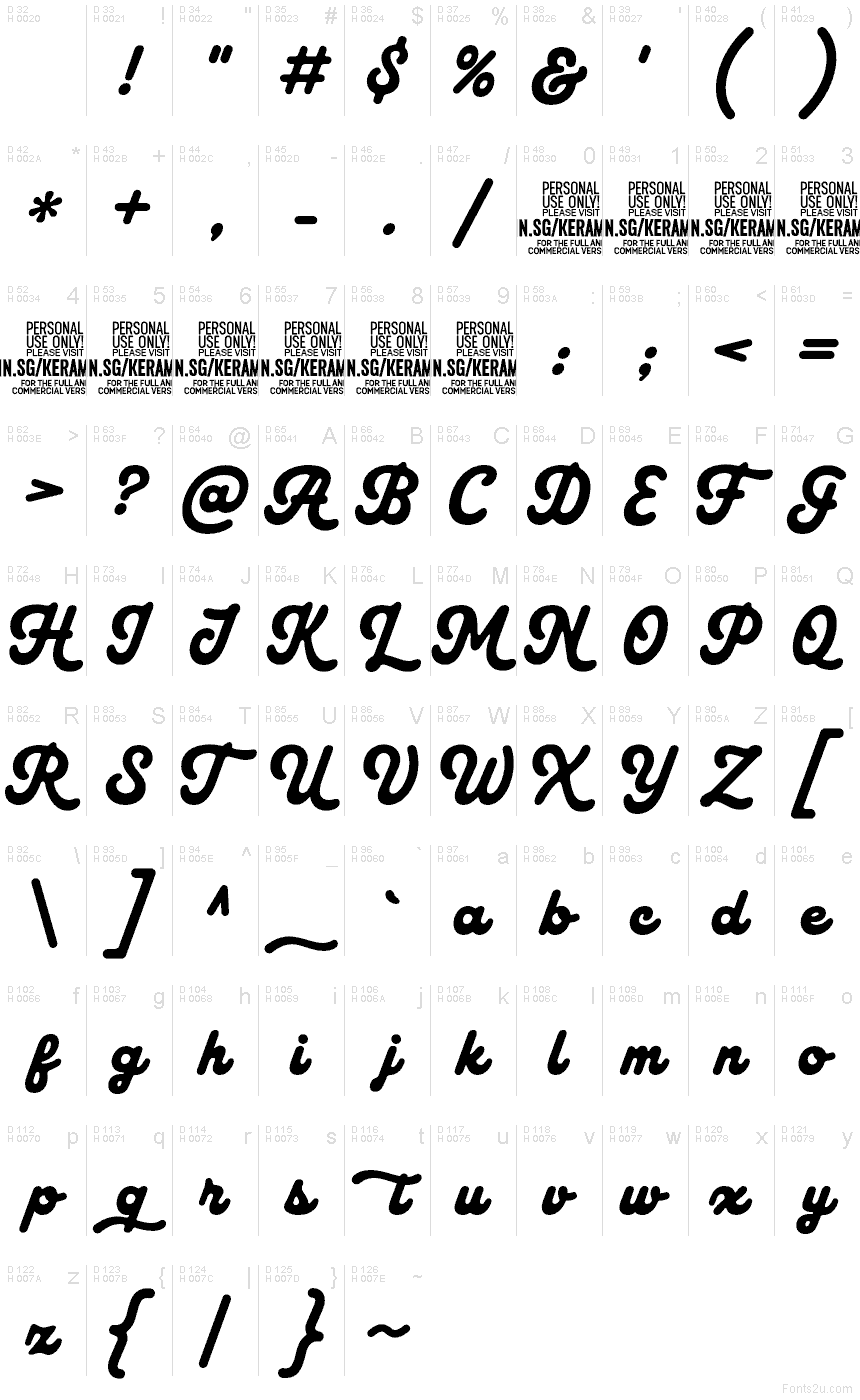
Keramique Script PERSONAL USE Regular
Keramique Script font by Mans Greback is a delightful brush font with a retro flair and expressive, flowing design. Its smooth transitions and casual elegance make it perfect for invoking vintage charm in any project.
Use an underscore (_) to create a swash under any word.
Example: Hea_rt
Utilize multiple underscores to produce longer underlines.
Example: Hand___made